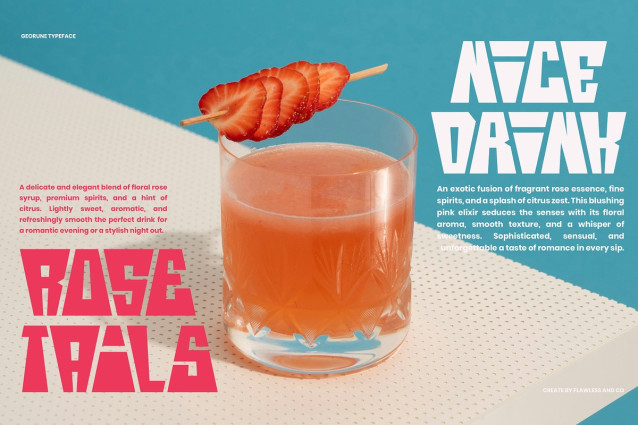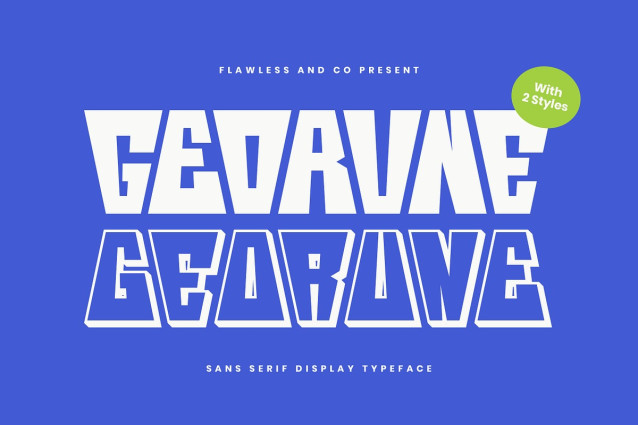
Georune Font
Georune Font a powerful sans serif display typeface built with sharp geometry and rebellious spirit. With its bold stance and angular cuts, Georune brings a futuristic edge to any design — striking, confident, and unmistakably modern. Available in 2 dynamic styles, Georune is perfect for headlines, logos, packaging, posters, and everything that needs attention-grabbing energy. Each character is crafted to deliver impact and rhythm — ideal for creative industries that don’t settle for average.